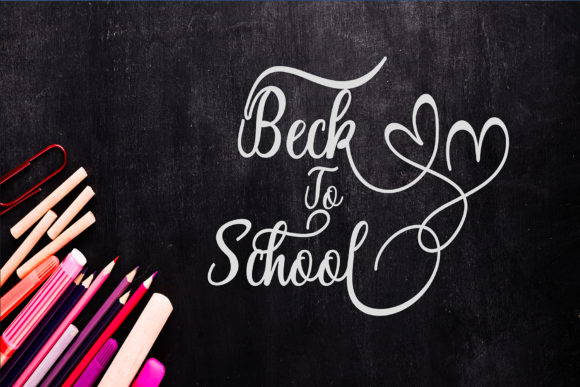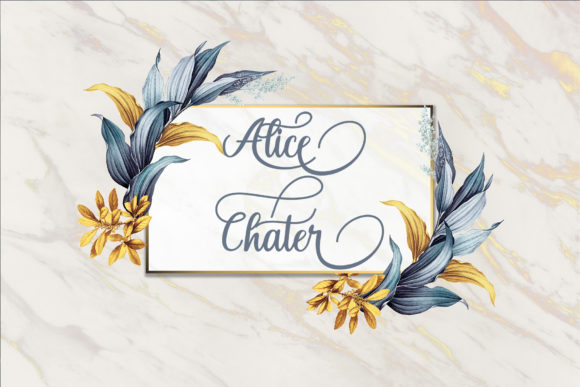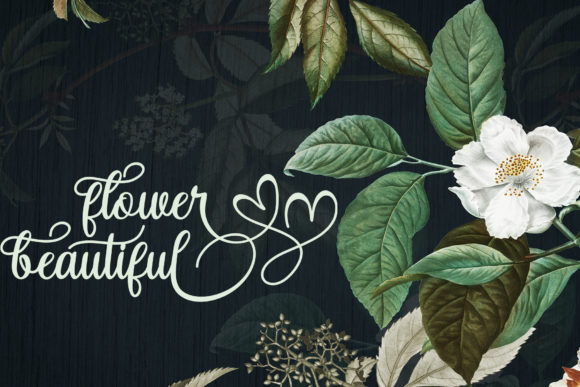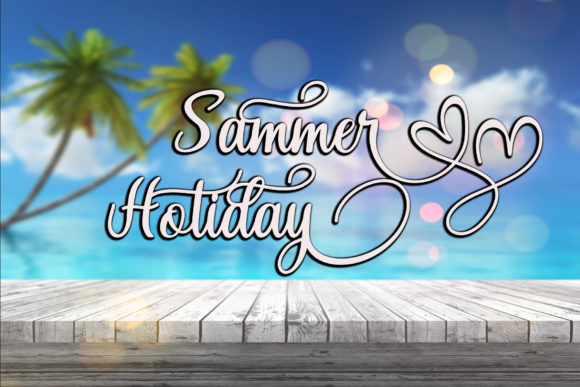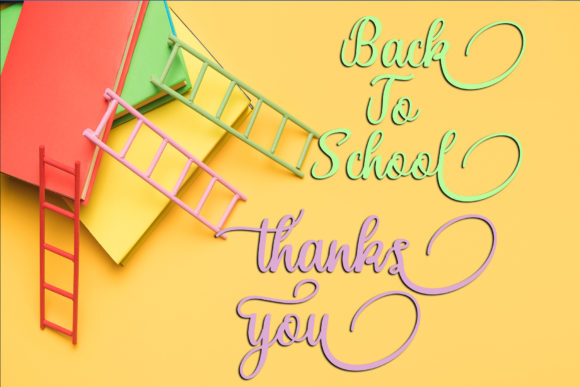
Alice Chater Font
About Alice Chater Font
Alice Chater is a bold and modern handwritten font with a unique feel. It’s a true standout amongst script fonts!